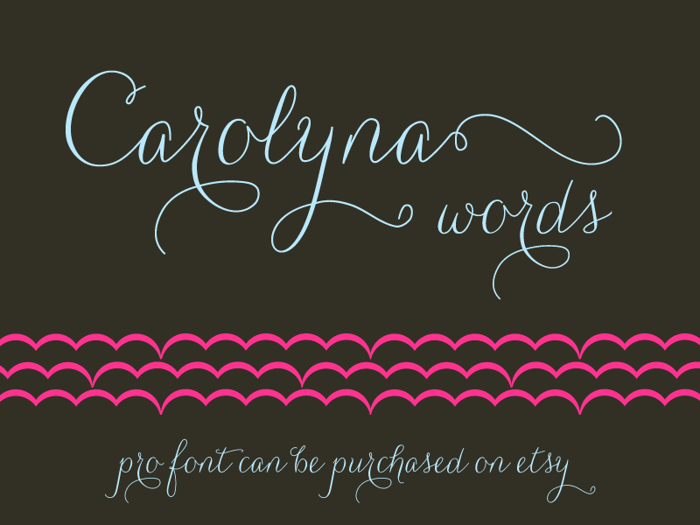
Carolyna Words Font
I'm super proud of this one :) This fun collection of words was created using Carolyna Pro - visit me on www.emilylimedesign.etsy.com if you are interested in purchasing the actual fonts used to create these words. For commercial licenses, visit me at www.emilylimedesign.etsy.com